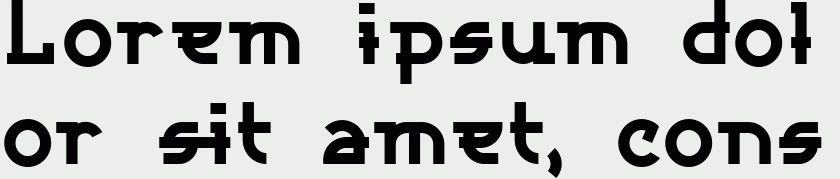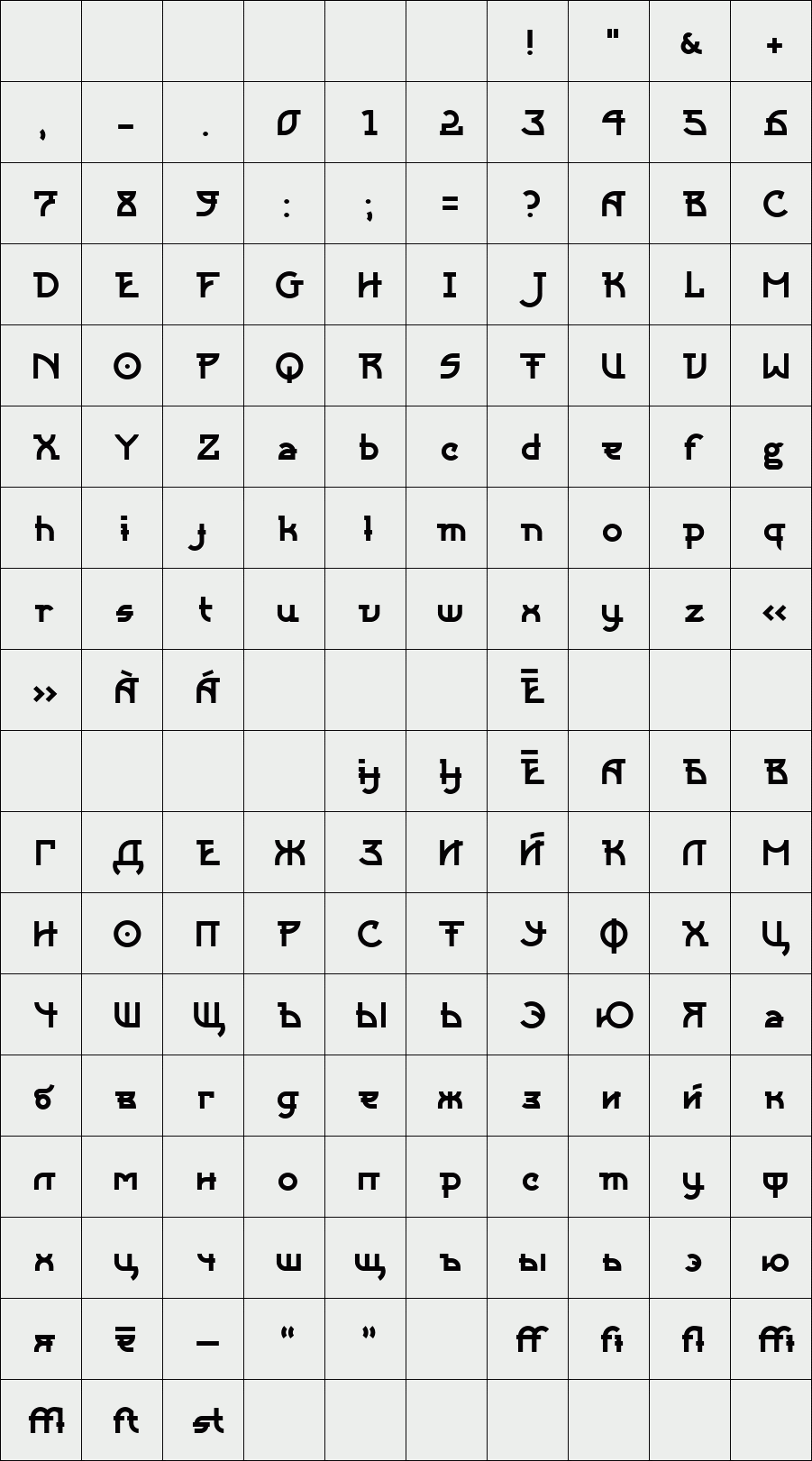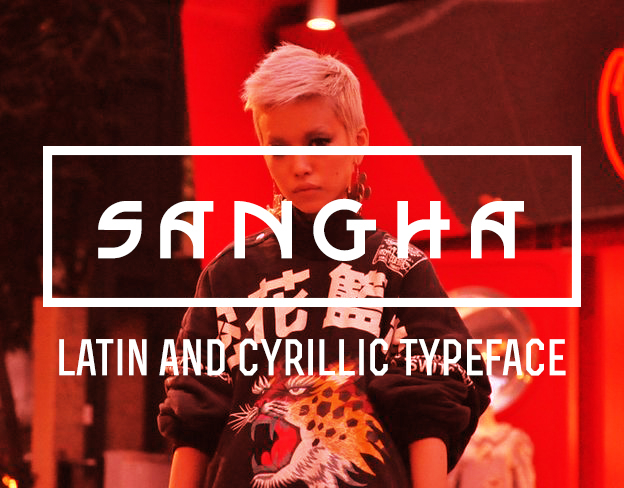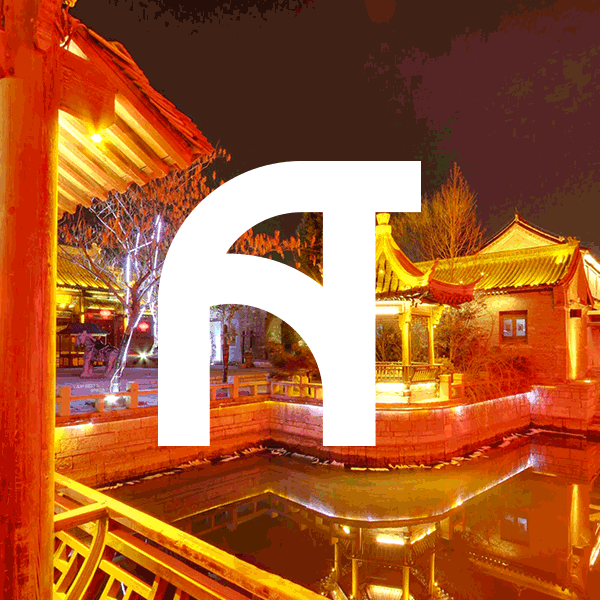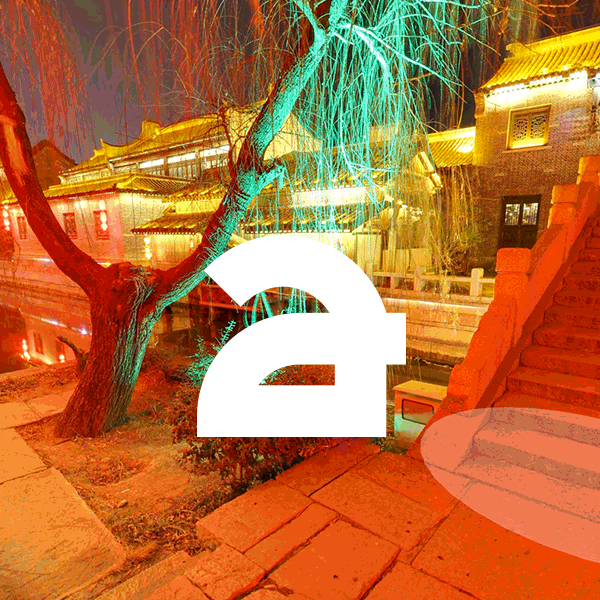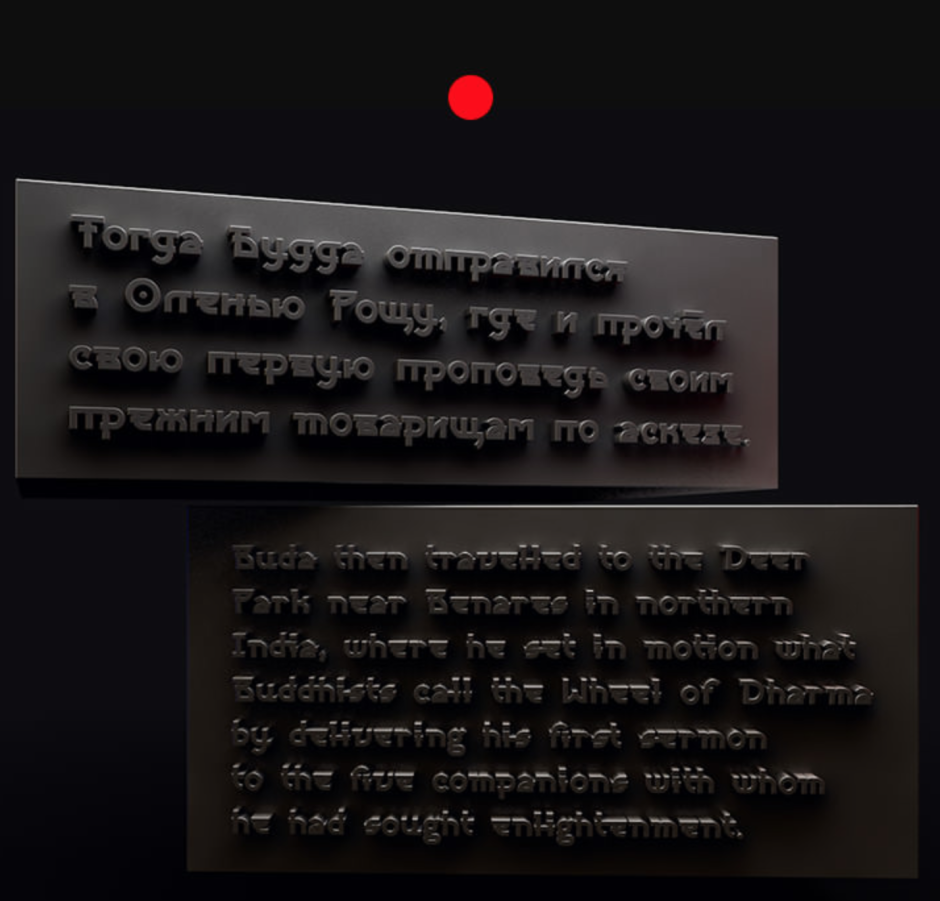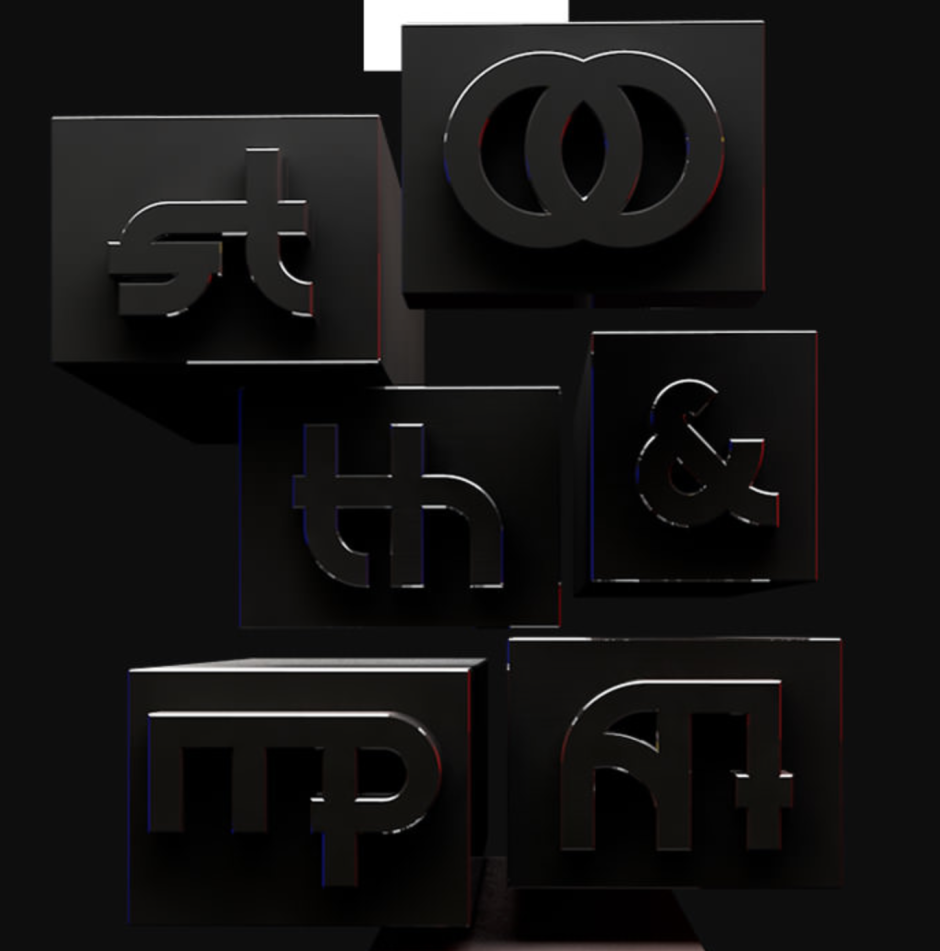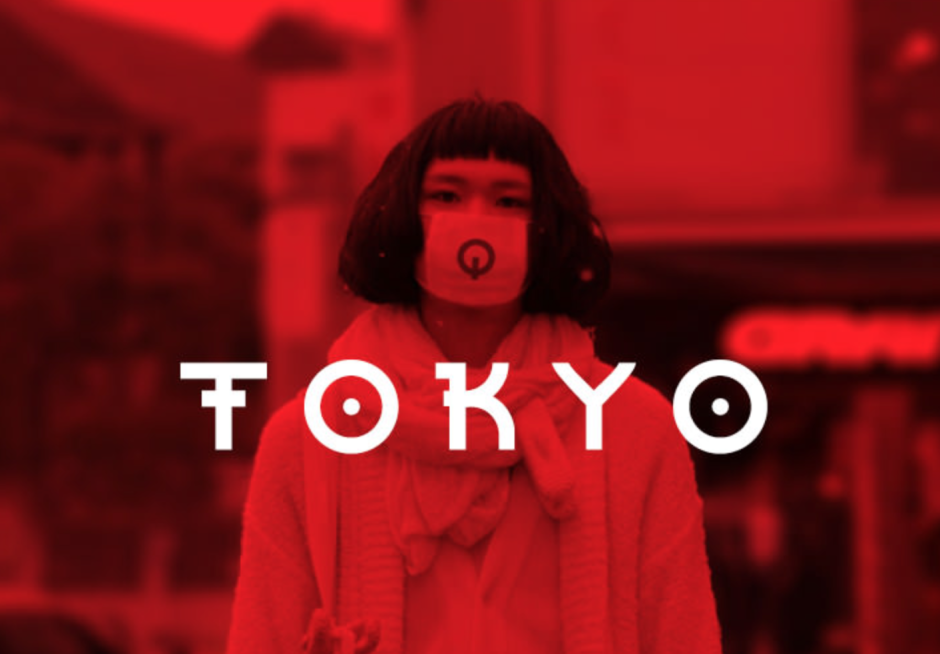
Sangha
Sangha typeface is inspired by the Brahmic scripts (Tibetan and Devanagari writing systems), which was used by languages of several language families: Indo-European, Dravidian, Tibeto-Burman, Mongolic (Soyombo alphabet), Austroasiatic, Austronesian, Tai. This is a noncommercial project. It is a research of indian typographic traditions. (2014)
Designer: Ann Seslavinskaya